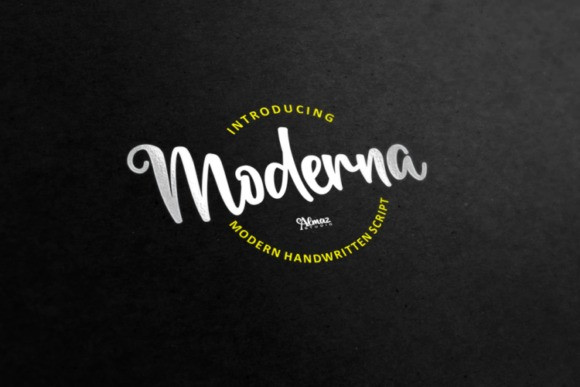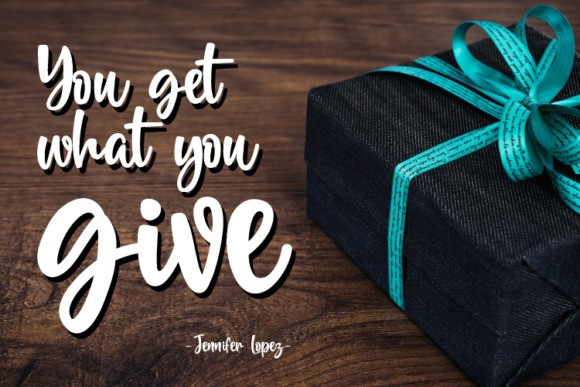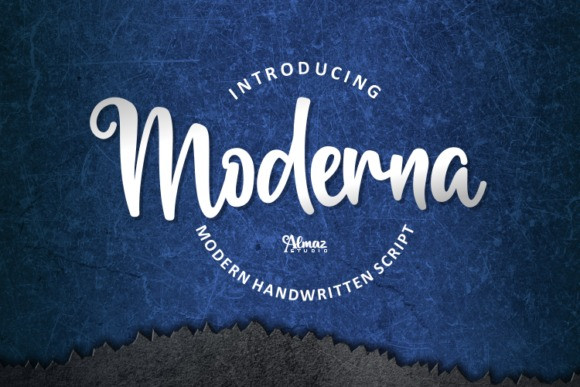
Moderna Font
Moderna Font feels equally charming and elegant. It looks stunning on wedding invitations, thank you cards, quotes, greeting cards, logos, business cards and every other design which needs a handwritten touch.